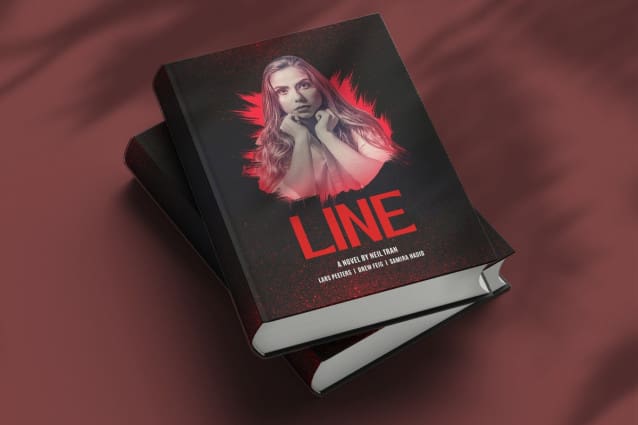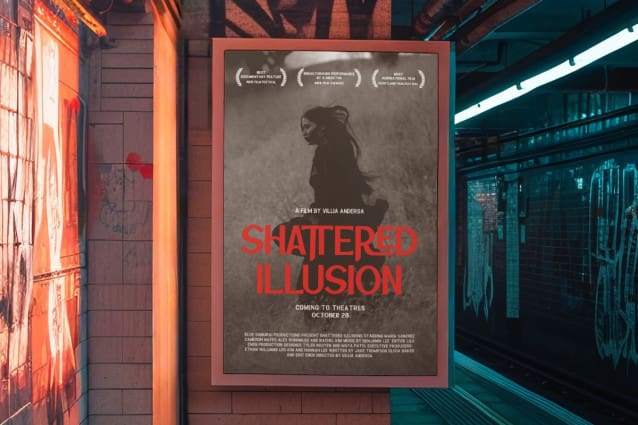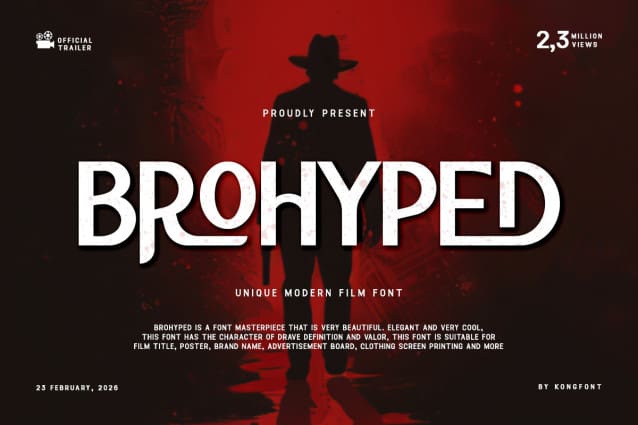
Brohyped Font
Brohyped Font – Modern Classy Display Film Font was created to present a simple and modern impression to anyone who sees it. This is in line with the characteristics of the letters in the Brohyped Font – Modern Classy Display Film Font is very clean without unnecessary knick-knacks in each letter. This font stands tall and exudes a confident vibe. People who read various texts using this type of font don’t need to bother to be able to read and understand this font. In other words, the Brohyped Font – Modern Classy Display Film Font is legible.
As the name suggests, Brohyped Font – Modern Classy Display Film Font is proper for sports typeface. Those who like simple letters but are still cool will choose this letter. Modern vibes can be used on hats, jerseys, tickets, and merchandise. This font can be printed small or large and still looks great from close up or afar. This font can be used for magazine covers and reading books.
Not only that, Brohyped Font – Modern Classy Display Film Font can be used as a digital font. It can be the video intro title and outro. This font is suitable for product branding. These can be product brand tags and advertising posters. This font can also be used as a business card.